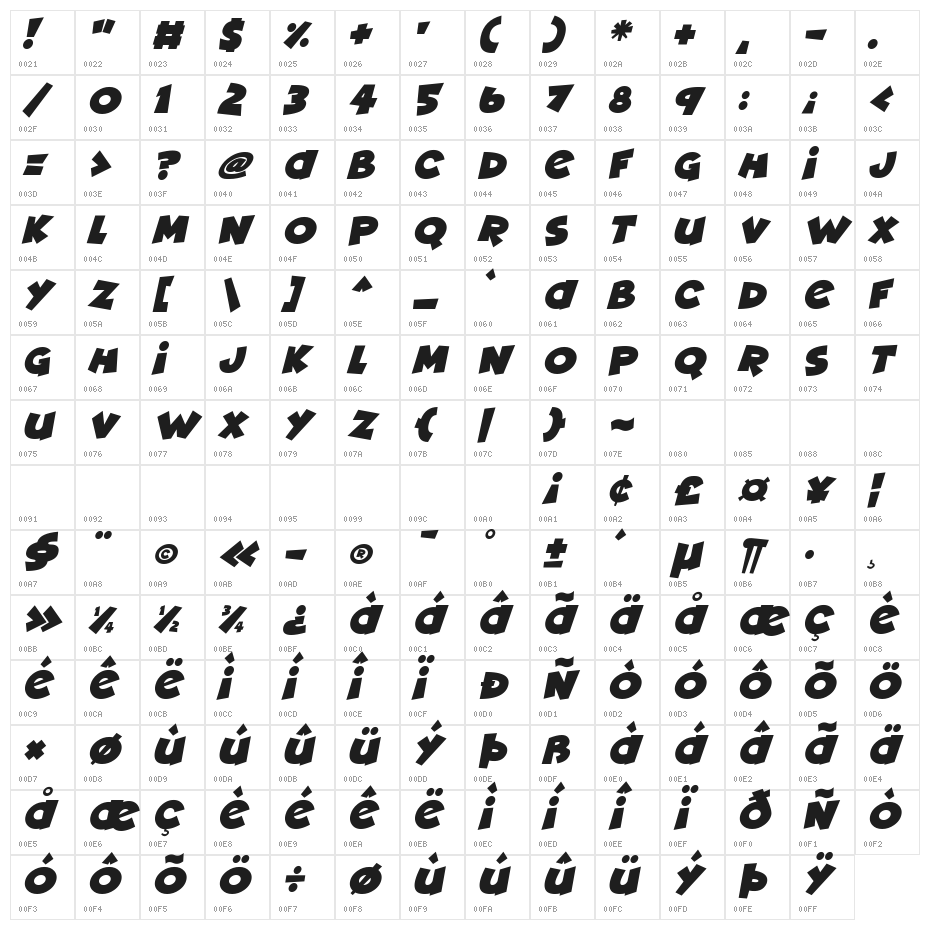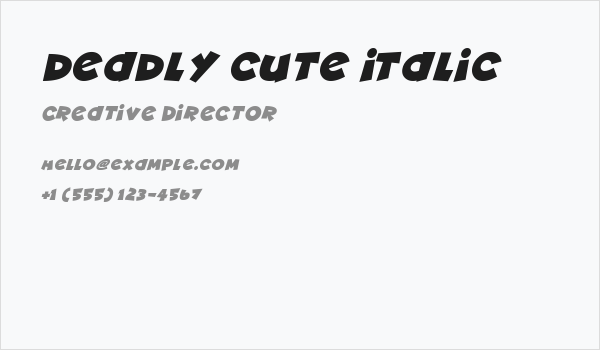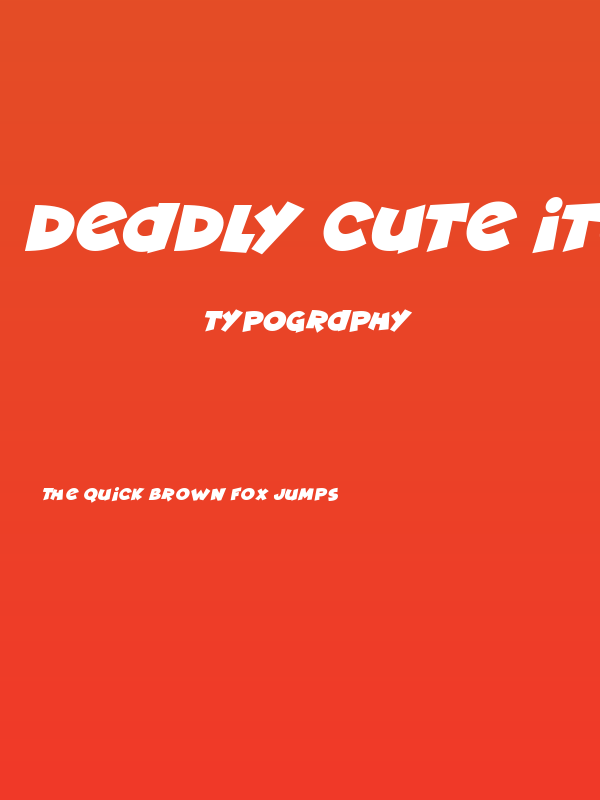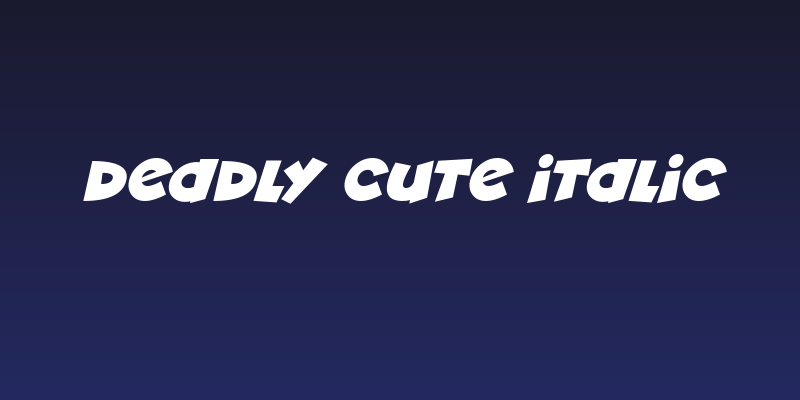
Deadly Cute Italic Font
Deadly Cute Italic Description
This playful and bold font features a dynamic, italicized style with thick, exaggerated strokes that give it a lively and energetic appearance. The characters are slightly slanted, adding a sense of movement and fun. The uppercase and lowercase letters maintain a consistent weight, while the numbers and special characters follow the same bold and whimsical design. The font's unique style makes it stand out, perfect for projects that require a touch of personality and flair.
| Overall Style | Playful, Energetic, Fun |
| Proposed Projects | Ideal for children's books, comic strips, playful branding, and eye-catching posters. |